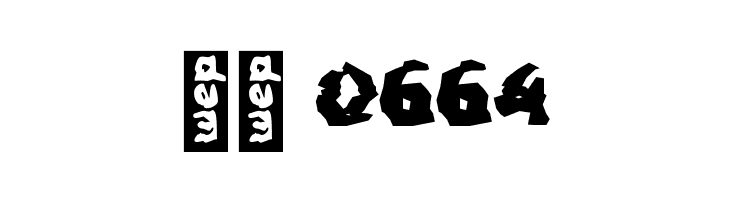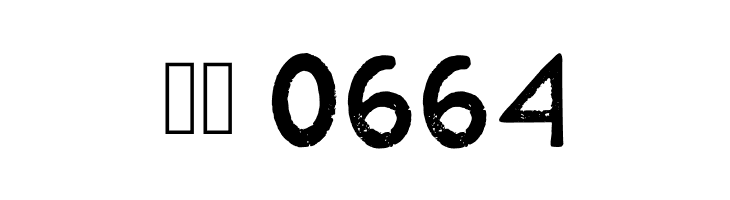
A bold, playful font with organic, cartoonish shapes and thick strokes.
( Fonts by Sam Wang )
A decorative font with Celtic influences, featuring angular and intricate letterforms.
A bold, intricate font with Celtic and dragon-inspired designs.
Ornate, Celtic-inspired decorative font with elaborate borders.
( Fonts by Levi Halmos )
A decorative serif font with a blend of traditional and modern elements.
A Celtic-inspired font with bold, artistic characters and unique styling.
( Fonts by Renn Crump - http://moorstation.org/typoasis/designers/renncrump/ )
A decorative font with Celtic knot designs in uppercase letters and traditional serif lowercase.
Ornamental font with diverse Celtic knotwork symbols.
( Fonts by Wojciech Kalinowski )
A bold, decorative font with Celtic-inspired design and intricate curves.
( Fonts by Wojciech Kalinowski )
A bold, oblique font with Celtic-inspired curves and sharp serifs.
( Fonts by Wojciech Kalinowski )
A decorative font with a blend of traditional and modern elements, featuring flowing curves and sharp angles.
( Fonts by Wojciech Kalinowski )
A calligraphic, oblique font with elegant curves and a dynamic style.
( Fonts by Altsys Metamorphosis )
A bold, Celtic-inspired font with angular strokes and artistic flair.
A decorative font featuring intricate Celtic motifs and symbols.
A bold, decorative font with a Celtic-inspired design, featuring thick, rounded characters and unique curves.
A decorative font featuring intricate Celtic-inspired designs and motifs.
A decorative font inspired by traditional Celtic art with intricate patterns and motifs.
A decorative font featuring intricate Celtic knot designs with high contrast.
( Fonts by Faqih Fawaji )
A bold, medieval-inspired font with sharp serifs and angular strokes.
An elegant and flowing script font with ornate, decorative letterforms.
An elegant and flowing script font with interconnected letterforms.
A bold, dripping font with a playful and eerie style.
( Fonts by zoeslogos )
A bold, textured font with a playful and vintage feel.
( Fonts by wep )
A rugged, stone-like font with bold, jagged edges and a three-dimensional effect.